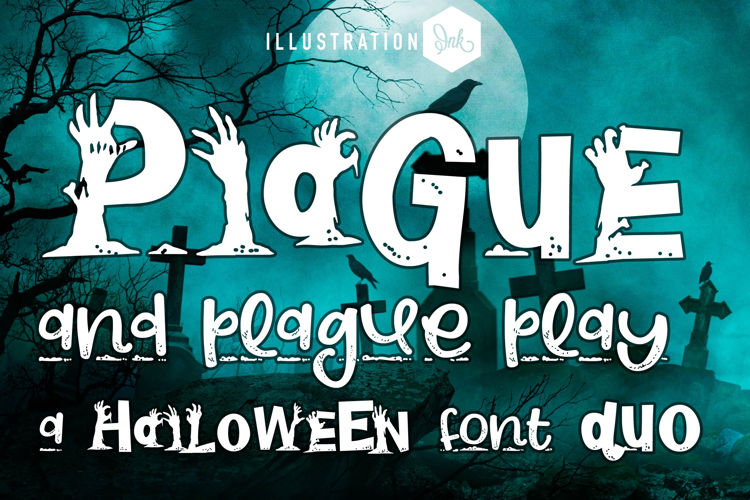
Plague Font Duo
This hand-crafted font duo combines a zombie-infused font with a playful print. With all family members combined, you get 6 fonts all together!
Hand-crafted fonts can be either formal or informal, and they can be used for a variety of purposes. Some of the characteristics of handwritten fonts include: The letters are not perfectly uniform in size or shape. There may be slight variations in the spacing between letters and words. The font may have a "wiggly" or "squiggly" appearance. The font may be difficult to read at small sizes. Handwritten fonts can be a great way to add a casual touch to your designs. They can also be used to create a sense of nostalgia or whimsy. However, it is important to choose a handwritten font that is appropriate for the project you are working on. A formal handwritten font may not be appropriate for a casual invitation, while an informal handwritten font may not be appropriate for a corporate document.
• The letters are not perfectly uniform in size or shape.
• There may be slight variations in the spacing between letters and words.
• The font may have a "wiggly" or "squiggly" appearance.
• The font may be difficult to read at small sizes.